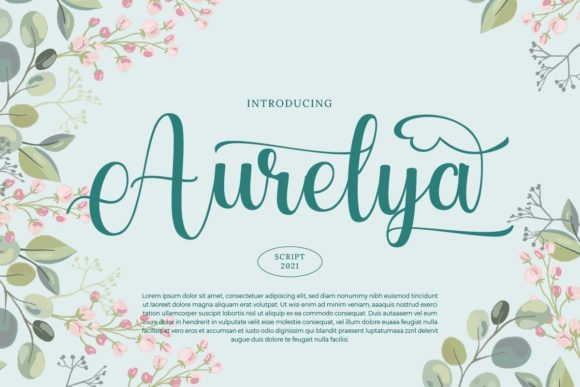
Aurelya Font: Elevate Your Designs with Delicate Elegance
Are you searching for a font that exudes sophistication and refinement? Look no further than Aurelya Font, a delicate and elegant handwritten font that is sure to capture your heart. With its distinct and well-balanced letters, Aurelya is a masterpiece that will take your designs to the next level. In this article, we’ll dive into the world of Aurelya Font and explore its features, benefits, and uses.
The Beauty of Aurelya Font
Aurelya Font is a stunning example of handwritten typography. Its delicate and elegant style makes it perfect for designs that require a touch of sophistication. The font’s distinct letters are carefully crafted to create a sense of balance and harmony, making it a joy to use. Whether you’re designing a logo, creating a social media post, or crafting a beautiful wedding invitation, Aurelya Font is the perfect choice.
One of the standout features of Aurelya Font is its incredible versatility. This font can be used in a wide range of designs, from elegant and sophisticated to playful and whimsical. Whether you’re creating a design for a luxury brand or a personal project, Aurelya Font adapts seamlessly to any style or theme. Its versatility makes it an excellent addition to any designer’s toolkit.
Aurelya Font is PUA (Private Use Area) encoded, which means that you can access all glyphs and swashes with ease. This feature makes it simple to add flourishes and decorative elements to your designs, taking them to the next level. With PUA encoding, you can unlock the full potential of Aurelya Font and create truly spectacular designs.
Aurelya Font offers a range of benefits for designers and crafters. Here are just a few:
- Elegance and sophistication: Aurelya Font adds a touch of elegance and sophistication to any design.
- Versatility: This font can be used in a wide range of designs, from elegant and sophisticated to playful and whimsical.
- Easy to use: Aurelya Font is PUA encoded, making it simple to access all glyphs and swashes.
- Time-saving: With Aurelya Font, you can create stunning designs in no time, saving you time and effort.
Uses for Aurelya Font
Aurelya Font is perfect for a wide range of design projects, including:
- Logos and branding: Create a stunning logo or brand identity with Aurelya Font.
- Social media graphics: Elevate your social media posts with elegant and sophisticated graphics.
- Wedding invitations: Create beautiful and elegant wedding invitations with Aurelya Font.
- Stationery and paper crafts: Add a touch of elegance to your stationery and paper crafts.
In conclusion, Aurelya Font is a delicate and elegant handwritten font that is sure to capture your heart. With its distinct and well-balanced letters, incredibly versatile style, and PUA encoding, Aurelya Font is the perfect choice for designers and crafters. Whether you’re creating a logo, social media post, or beautiful wedding invitation, Aurelya Font will help you create spectacular designs that will leave a lasting impression.